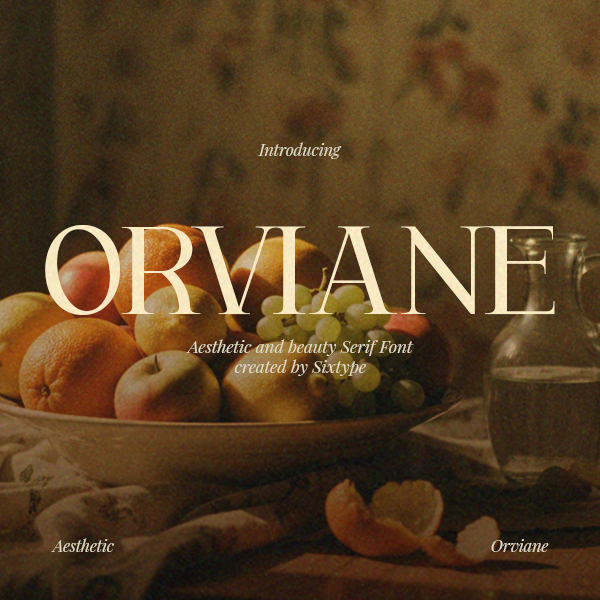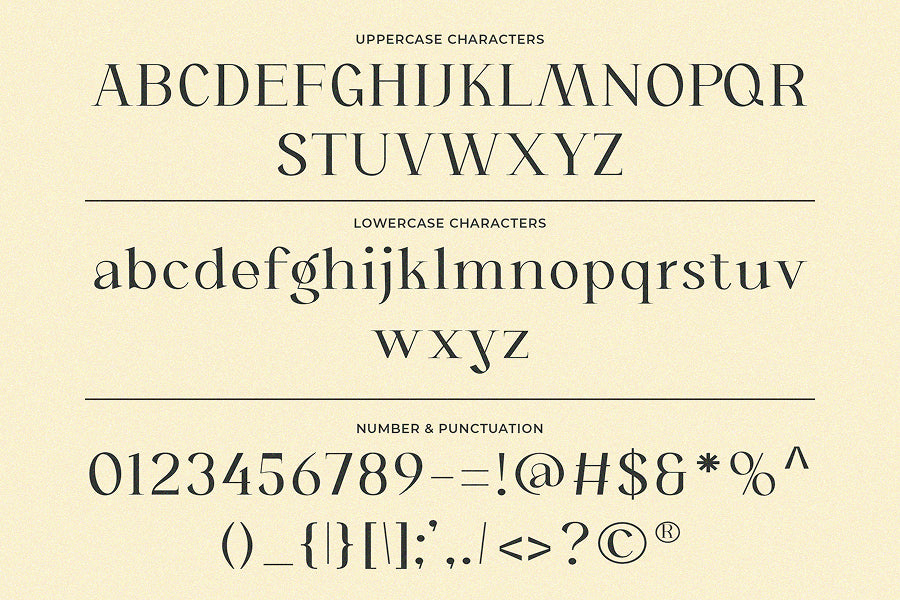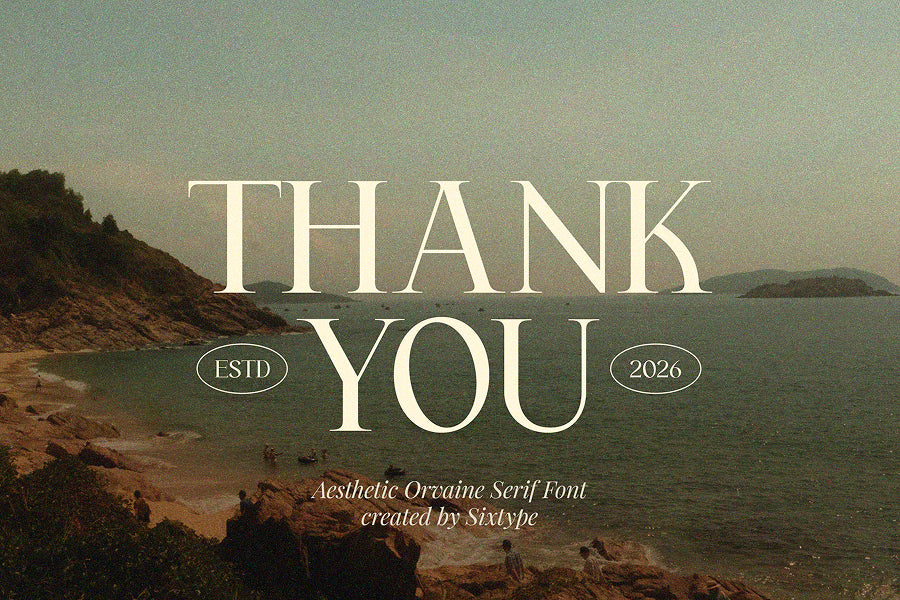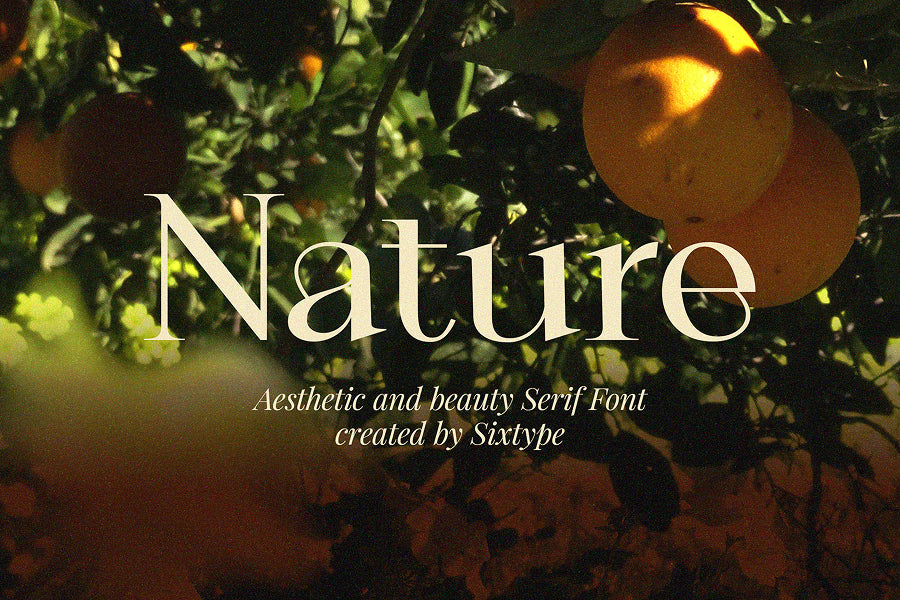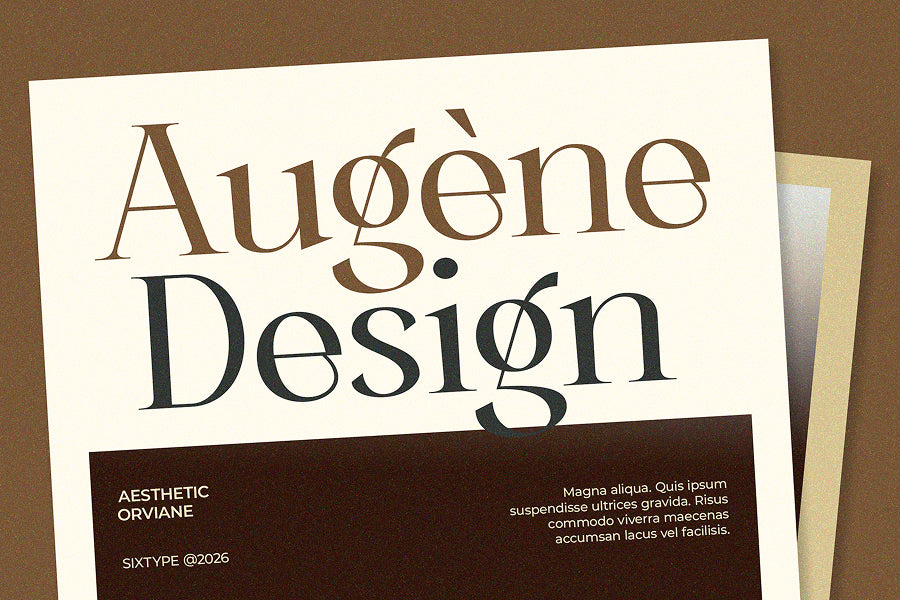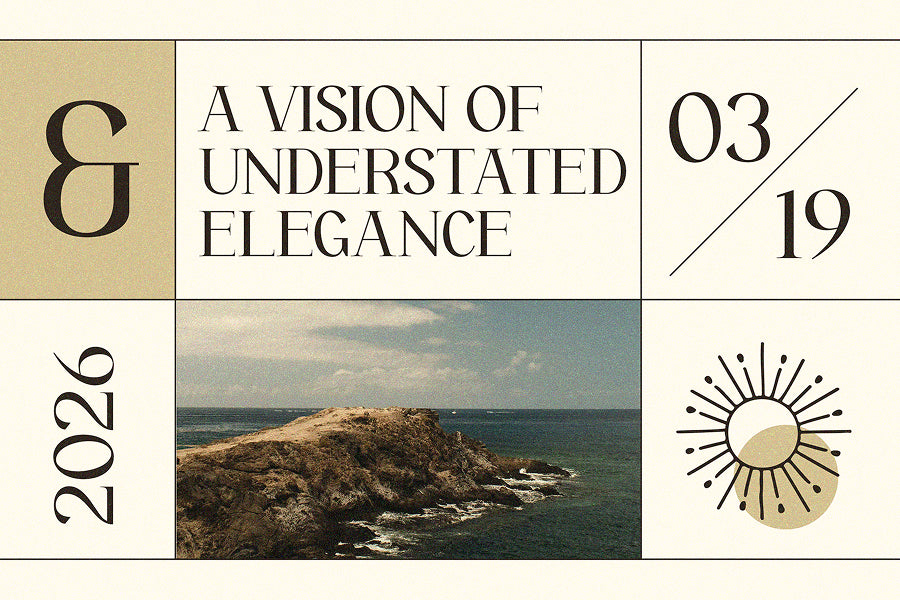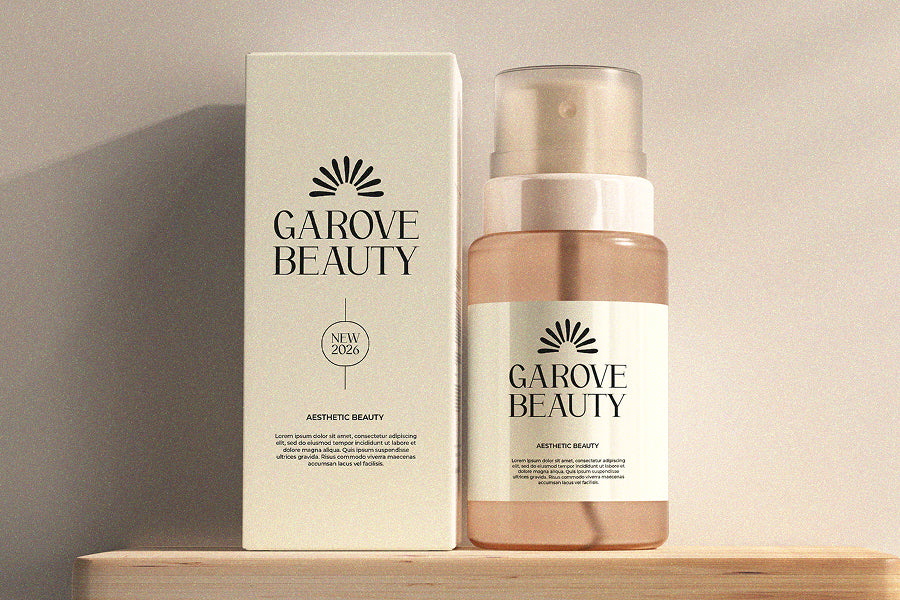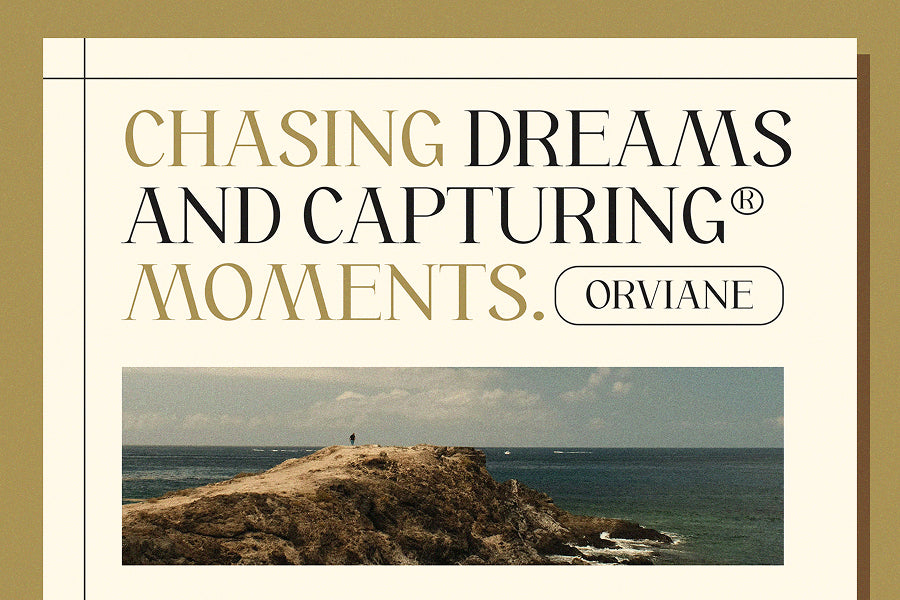
Orviane Serif Font
Orviane carries a graceful, high-contrast serif structure built for editorial elegance. Thin hairlines meet thicker stems in a classic didone-style contrast, while the lowercase forms stay light and airy, giving the whole set a refined, fashion-editorial presence. The subtle flare on terminals like the "g" adds a touch of quiet character without disrupting the font's clean sophistication.
That refined contrast is where Orviane does its best work. It reads as polished and upscale at both text and display sizes, striking the balance between classic serif tradition and modern editorial styling. The light, elegant proportions keep it versatile across fashion, beauty, and fine branding work.
Picture Orviane heading up a fashion magazine spread, anchoring a boutique or beauty brand wordmark, or set across an elegant wedding invitation. That's where its character really lands.
Orviane suits fashion and beauty branding, editorial headlines and magazine layouts, boutique logo design, wedding stationery, and social media graphics that want a refined, high-contrast statement.
Orviane is a high-contrast serif font featuring didone-style contrast between thin hairlines and thicker stems, with light, airy lowercase forms and subtle terminal flares. It includes the Regular weight in OTF, TTF, WOFF, and WOFF2 formats, with language support for English, Spanish, German, Italian, Portuguese, French, and core Western European Latin characters.